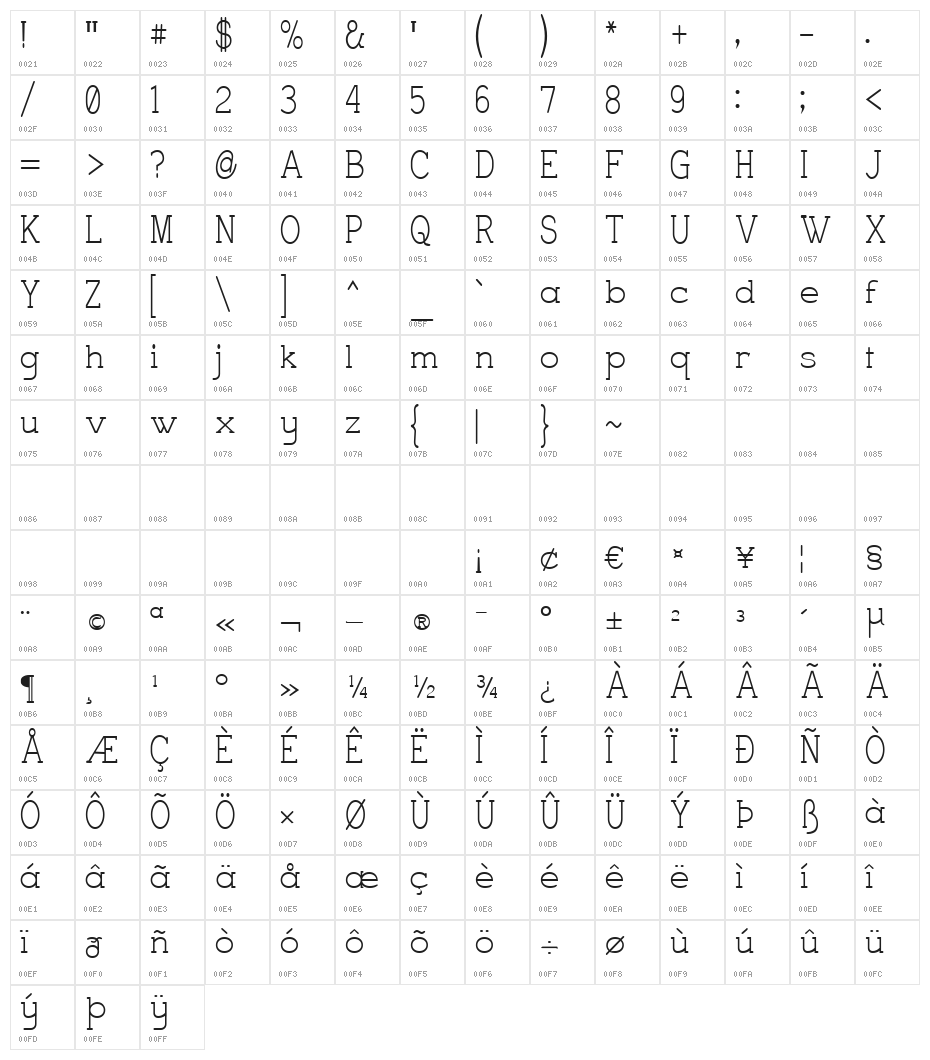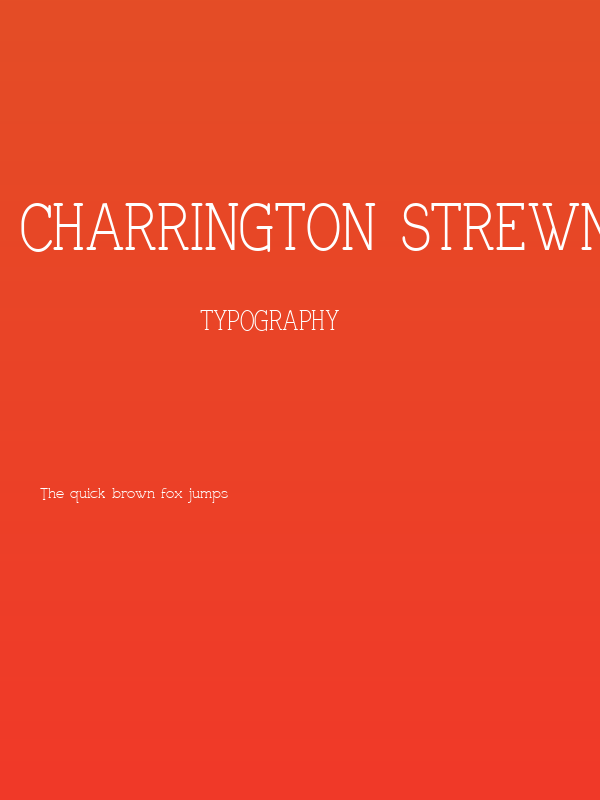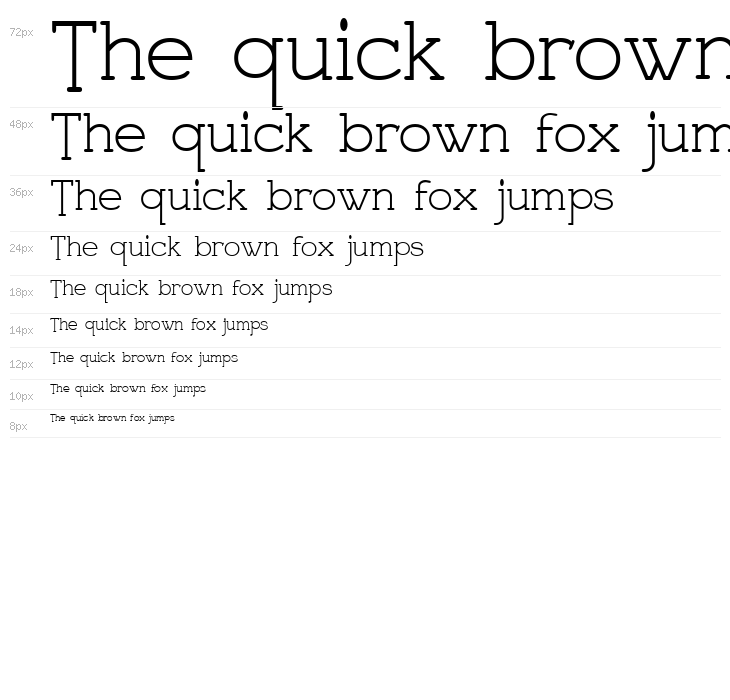
Charrington Strewn Font
Charrington Strewn Description
This font exhibits a modern and clean aesthetic with a geometric structure. The uppercase letters are bold and well-defined, while the lowercase letters maintain a consistent and harmonious flow. The numerals are clear and easily distinguishable, contributing to the font's overall readability. Special characters are designed with a balance of simplicity and style, making them suitable for various applications. The font's uniform stroke width and minimal contrast give it a contemporary feel, ideal for digital and print media. Its versatility is evident in its ability to maintain clarity and elegance across different sizes and contexts.